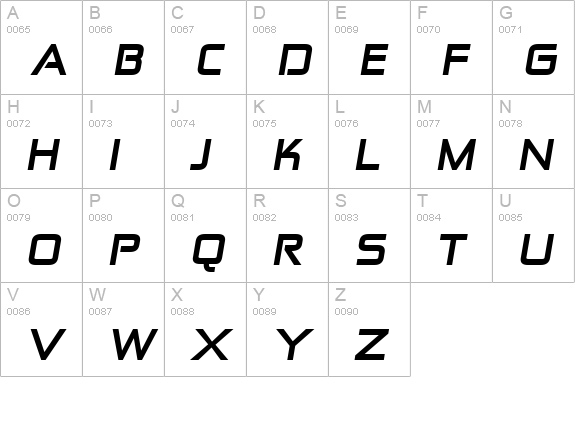
Zekton ExHv Italic is a distinctive, italic variant in the Zekton typeface family \xE2\x80\x94 well suited to design and typography projects.
Zekton ExHv Italic font is a sleek and sophisticated typeface that exudes modernity and style. Its italicized design adds a touch of elegance to any project, making it perfect for fashion magazines, luxury branding, and sleek website designs. The sharp angles and clean lines of Zekton ExHv Italic font create a bold and impactful look that demands attention. Best of all, Zekton ExHv Italic font is available for free download at FontsMarket.com. This means you can elevate your designs without breaking the bank, making it an ideal choice for designers on a budget or anyone looking to add a touch of sophistication to their projects. Don't miss out on this opportunity to enhance your work with the stunning Zekton ExHv Italic font - download it for free today!